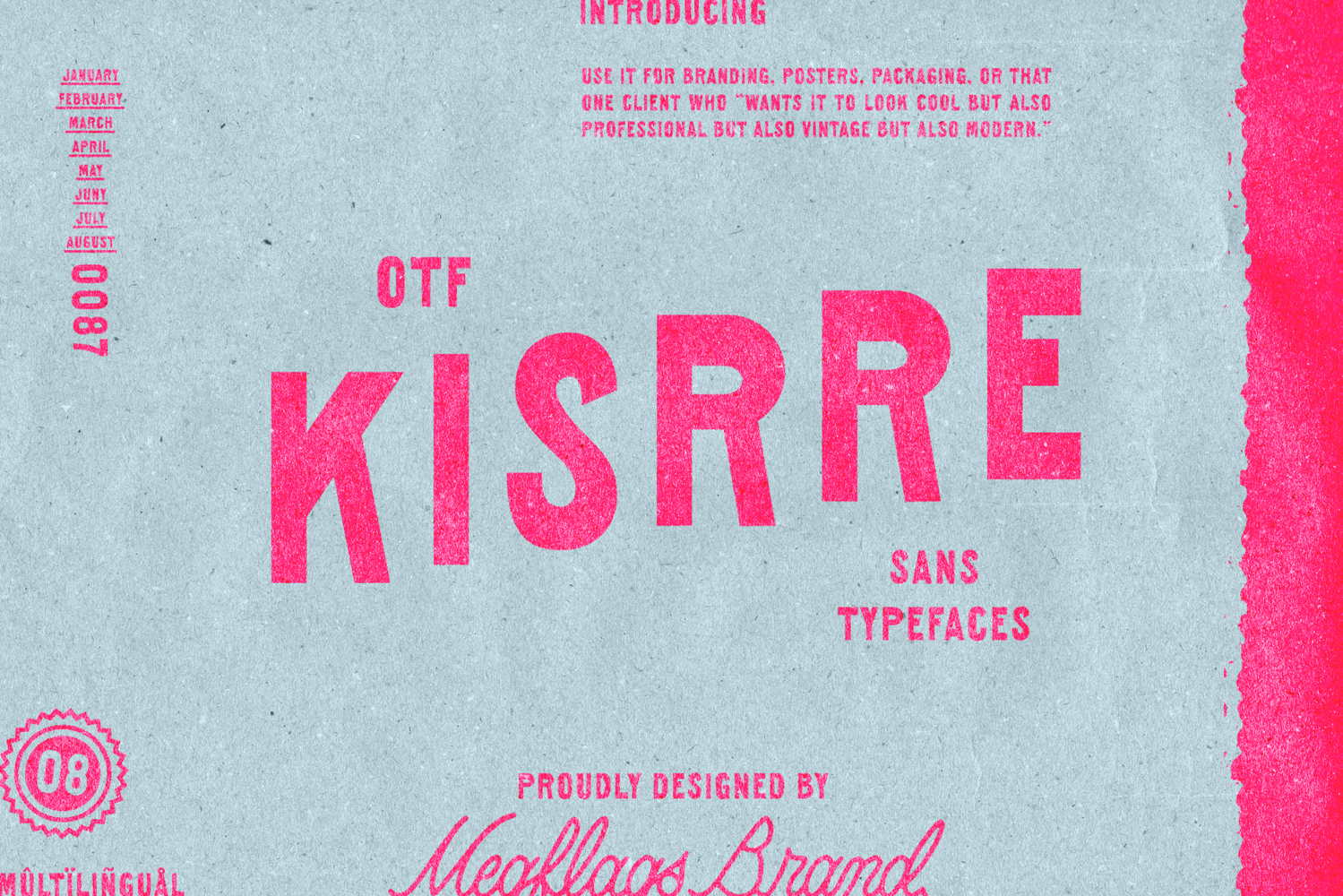
Kisrre
Meet Kisrre, your new typographic BFF who rocks vintage charm but still uses a wireless mouse. This sans-typeface lovechild comes in Regular, Rounded, and Rough perfect for everything from nostalgic diner menus to "I swear this is handmade" merch. Multilingual support included. (No Rosetta Stone needed.) Put it on posters, packaging, t-shirts, or tattoo it on your forehead (we wont judge). Kisrre: like Helveticas weird cousin who wears corduroy and actually pulls it off.
Kisrre